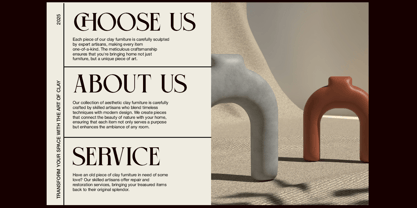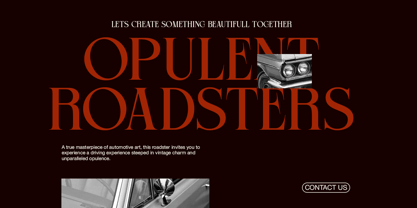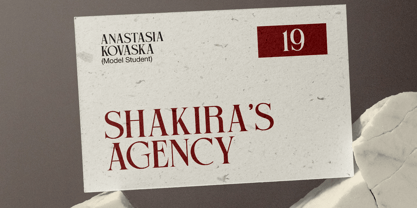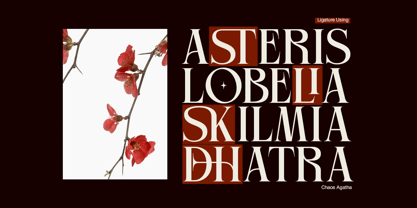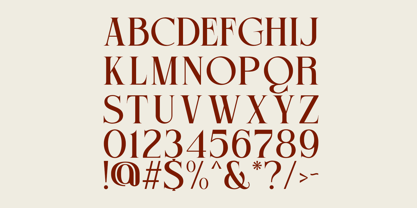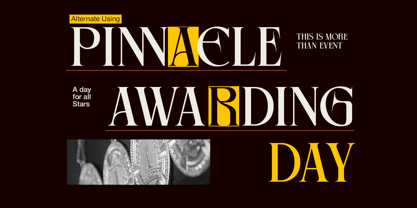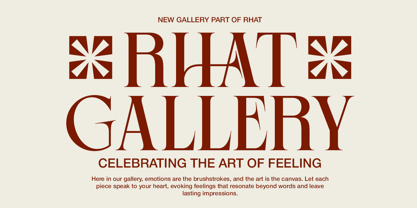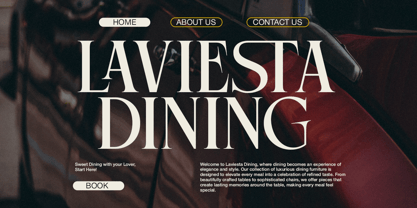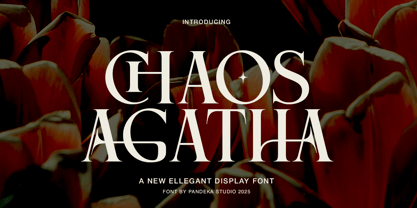
Chaos Agatha
von Pandeka Studio
Die Schriftfamilie Chaos Agatha wurde von Sagara Nararya entworfen und von Pandeka Studio veröffentlicht. Chaos Agatha enthält 1 Stile.
Chaos Agatha – Elegant Display Serif
Chaos Agatha is a sophisticated display serif with a bold character and timeless elegance. Designed for luxury branding, stylish lettering, high-end packaging, and editorial designs, this font exudes refinement and exclusivity. Its classic yet modern aesthetic makes it ideal for premium fashion, beauty, and lifestyle projects, ensuring a distinctive and captivating visual appeal.
• Full Character Set: Uppercase, lowercase, numbers, symbols, and punctuation
Designer: Sagara Nararya
Foundry: Pandeka Studio